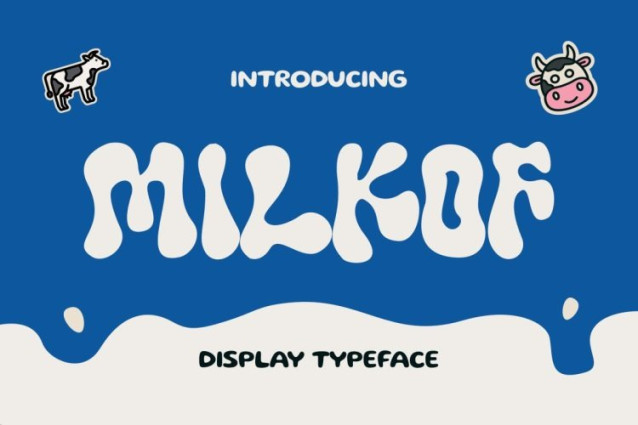
Milkof Font
Milkof Font brings a delightful bubble-style design with soft rounded shapes, sweet curves, and a cheerful handmade look. Furthermore, the font creates a joyful and friendly atmosphere that instantly grabs attention. Because of its chunky and fluffy letterforms, Milkof feels cute, playful, and full of positive energy. In addition, the smooth organic structure gives every headline a fun and memorable appearance while maintaining excellent readability. As a result, your designs feel more engaging, adorable, and perfect for young audiences.
Moreover, Milkof combines cartoon-inspired charm with modern creativity, so it works beautifully for branding, packaging, and social media content. Whether you are designing kids’ products, snack packaging, event posters, or educational materials, this font helps every project feel more lively and approachable. Therefore, Milkof is an excellent choice for creators who want typography that looks fun, sweet, and full of character.